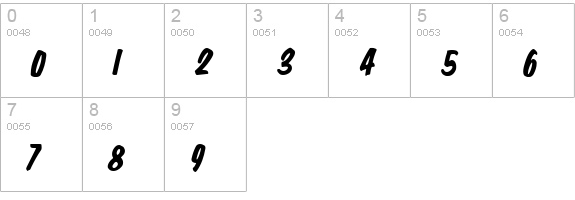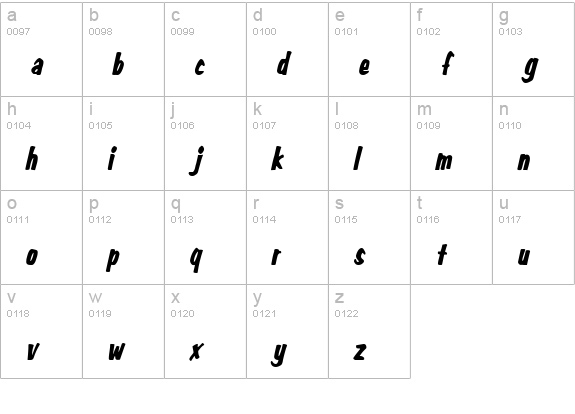
Big Nib-Condensed Italic is a distinctive, condensed-width, italic variant in the Big typeface family \xE2\x80\x94 well suited to design and typography projects.
Big Nib-Condensed Italic is a sleek and modern font that exudes elegance and sophistication. Its slender and stylish design makes it perfect for adding a touch of flair to any project. The italicized version of Big Nib-Condensed brings a sense of dynamism and movement to your text, making it stand out and capture attention. This font is free to download and use for both personal and commercial projects. You can get your hands on this exquisite typeface at FontsMarket.com, where it is readily available for download. With Big Nib-Condensed Italic, you can elevate your designs and make a bold statement with ease.